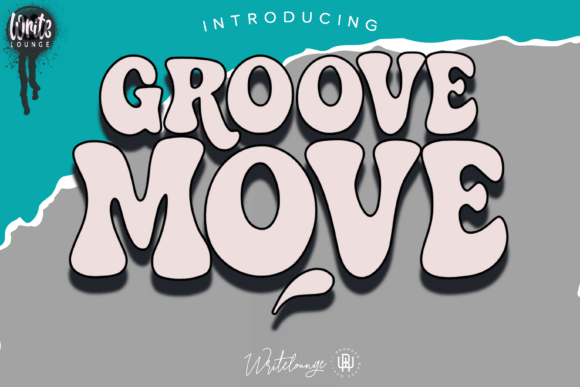
The Groovy Revival: Unlocking the Power of Groove Move Font
Have you ever stumbled upon a font that instantly transports you to a bygone era of creativity and self-expression? For designers, this moment is a dream come true. It’s when the perfect combination of style, personality, and nostalgia comes together to spark a new project or idea.
Enter the Groove Move Font, a bold, rounded display font that embodies the carefree spirit of the 1970s. With its smooth curves and bubbly letterforms, this font is perfect for creative projects that need a fun, relaxed, and eye-catching style. Whether you’re designing posters, branding, or social media graphics, Groove Move Font is a valuable addition to any designer’s toolkit.
What sets Groove Move Font apart is its ability to deliver a modern retro vibe without feeling dated. Its balanced shapes and warm personality make it a versatile choice for both digital and print designs, ensuring that your projects stand out in a crowded creative landscape.
Groove Move Font Key Features
- Unique Characteristics: Groove Move Font features a dynamic, hand-drawn style with a mix of modern and vintage elements, perfect for creating eye-catching headlines and titles.
Designer Review: Groove Move Font
Overall, I think Groove Move Font is an interesting addition to the font family. Here are some aspects that stand out:
- ✨ Versatility: The font is suitable for both digital and print media. Its modern design and unique style make it versatile for a wide range of applications.
- ✨ Unique character set: The font has a unique character set that includes various ligatures, swashes, and alternates, making it a great choice for designers who want to add some flair to their designs.
- ✨ Good for headings: The font is particularly well-suited for headings and titles, as it’s bold and eye-catching.
However, there are some limitations that might affect its usability:
- ⚠️ Readability: While the font is bold and eye-catching, it can be challenging to read in large blocks of text, especially for people with visual impairments.
- ⚠️ Limited language support: The font may not be suitable for languages that require a lot of diacritical marks or non-Latin scripts.
- ⚠️ May not be suitable for body text: Due to its bold and decorative style, the font may not be the best choice for body text, as it can be overwhelming and difficult to read.
Overall, I think Groove Move Font is a great choice for designers who want to add some personality to their designs, but it’s not suitable for all types of projects. Use it wisely, and it can be a great asset to your design toolkit.